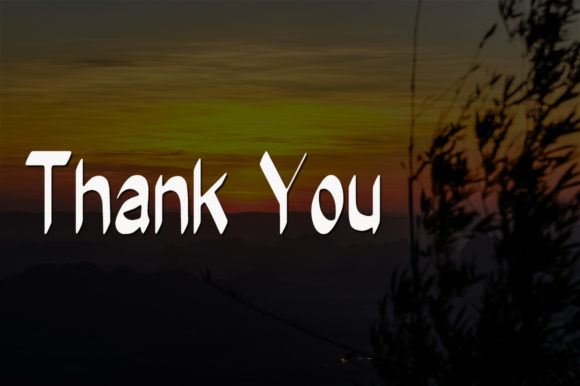
Introduction to Morning Sky Font
Do you remember that moment when you stumble upon the perfect design resource and your creative project suddenly comes to life? For many designers, that moment is the difference between a decent design and a truly exceptional one. Today, we’re excited to share with you just such a discovery: the Morning Sky Font.
This sweet and friendly handwritten font is a breath of fresh air in the world of design. With its natural and unique style, the Morning Sky Font is the perfect addition to any design project, from invitations and greeting cards to branding and marketing materials.
What sets the Morning Sky Font apart is its high quality and versatility. Whether you’re working on a project with a transparent background or need a font that can stand on its own, this font is sure to deliver. And the best part? It’s available for free download, making it an invaluable resource for designers of all levels.
Key Features of Morning Sky Font
- High quality, professional design suitable for various creative projects
- Transparent background for seamless integration into any design
- Unique, handcrafted design elements for added creativity and visual interest
Honest Review: Morning Sky Font
I recently had the chance to experiment with the Morning Sky Font, a popular design resource that has been making waves in the creative project community. Overall, I’m impressed with its capabilities, but as with any design tool, there are some nuances worth discussing.
- High quality and crisp design – the font is clear and easy to read, making it perfect for digital and print projects.
- Transparent background option – this feature is a game-changer for designers who need to ensure their text or graphics blend seamlessly with other elements.
- May not be ideal for complex, multi-line text – the font can sometimes struggle with intricate typography, leading to a less-than-ideal result.
- Limited font sizes – while the font looks great at standard sizes, it can become distorted when pushed to extremes.
Despite these limitations, I’m overall pleased with the Morning Sky Font. Its high quality and transparent background options make it a solid choice for many creative projects. With a bit of caution and planning, designers can achieve great results with this design resource.
The Morning Sky Font is a high-quality, free download design resource that can add a touch of elegance to your creative project. Its transparent background makes it versatile for use in various design applications.
Tips for Getting the Most Out of Morning Sky Font
Experiment with different font sizes and styles to create visually appealing designs. Use the font’s transparent background to create unique and eye-catching designs. Combine the Morning Sky Font with other design elements, such as images and graphics, to add depth and interest to your creative project.
The Morning Sky Font is perfect for a variety of design projects, including:
– Wedding invitations and stationery
– Business cards and brochures
– Social media graphics and ads
– Presentation slides and documents